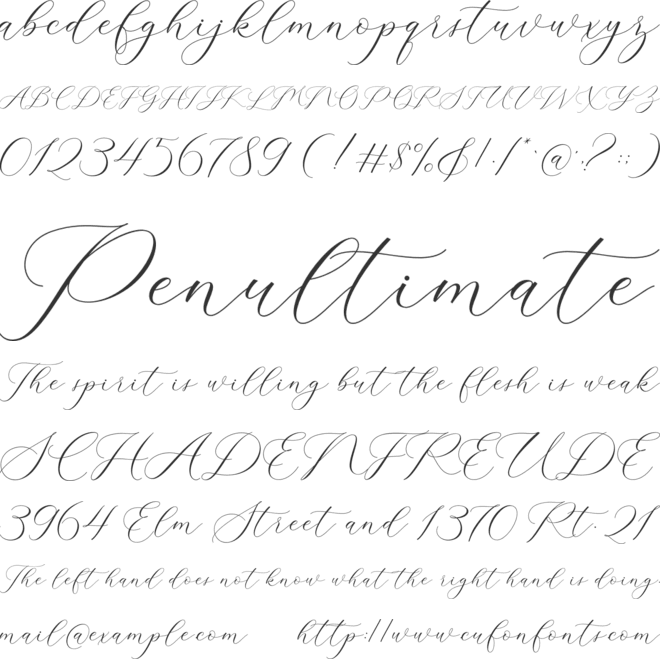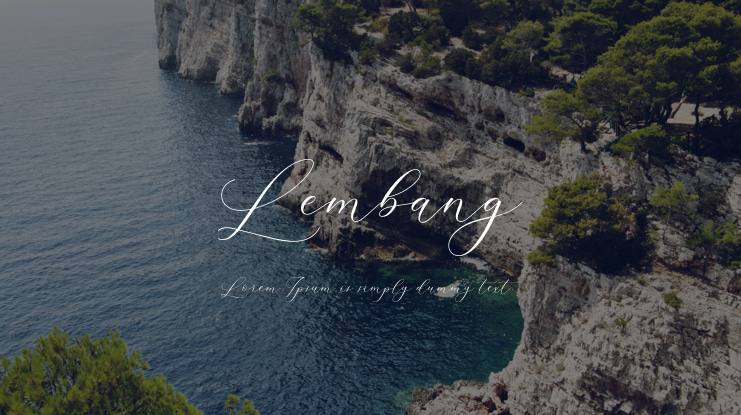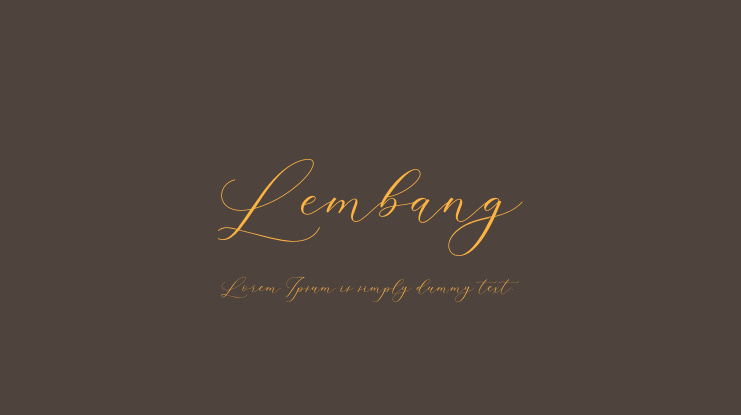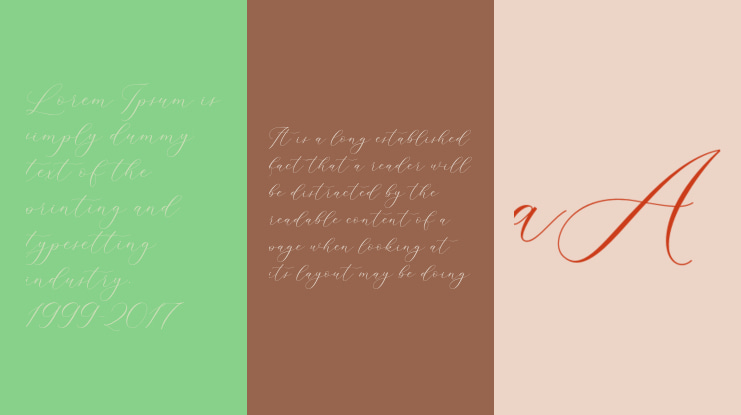
Lembang Font
Decorative calligraphy script font will elevate any project to a new level of elegance and sophistication. The intricate design of the script adds a touch of sophistication that is bound to leave a lasting impression.
Lembang font preview